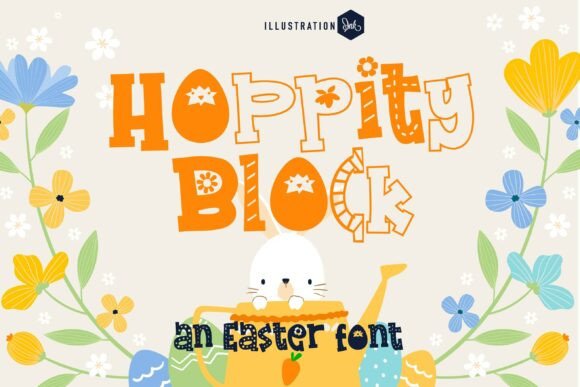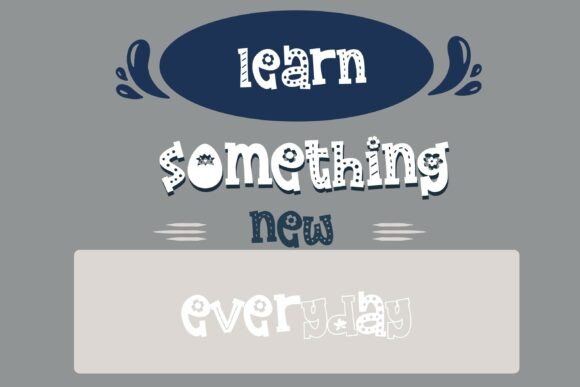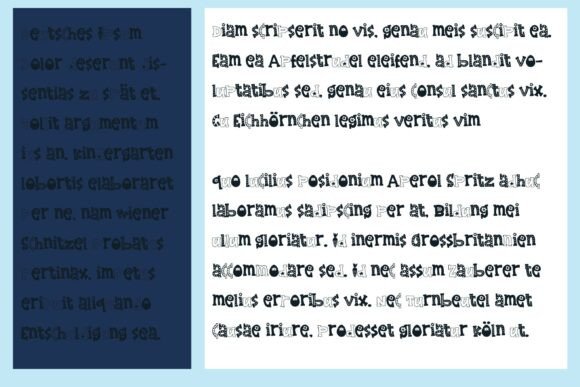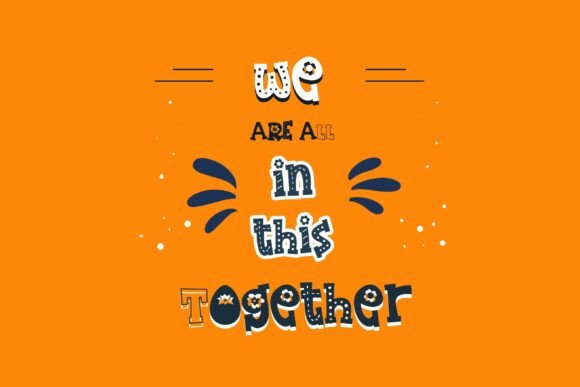
Hoppity Block Font
About the Hoppity Block Font
We are excited to introduce Hoppity Block Font, a must-have typeface for any serious designer. This hand-crafted font is a whimsical serif with adorable Easter imagery throughout.
Hoppity Block’s playful design is ideal for projects requiring a touch of whimsical charm. It excels in headlines, short-form text on invitations, greeting cards, and children’s books. The Easter motifs make it perfect for seasonal branding and packaging. However, its decorative nature makes it unsuitable for body text or UI elements where legibility is paramount.
Its inherent friendliness pairs well with clean sans-serif fonts like Open Sans for a balanced contrast, or a more geometric sans-serif for a modern feel. A script font such as Great Vibes could add a touch of elegance for invitations, while a simple serif like Lora provides a sophisticated counterpoint for more formal applications.
Hoppity Block possesses a distinctly cheerful and approachable personality, best suited for brands targeting a young or family-oriented audience. Avoid using it for projects requiring a serious or sophisticated tone.
Hoppity Block Font Usage Examples
Hoppity Block Font Example